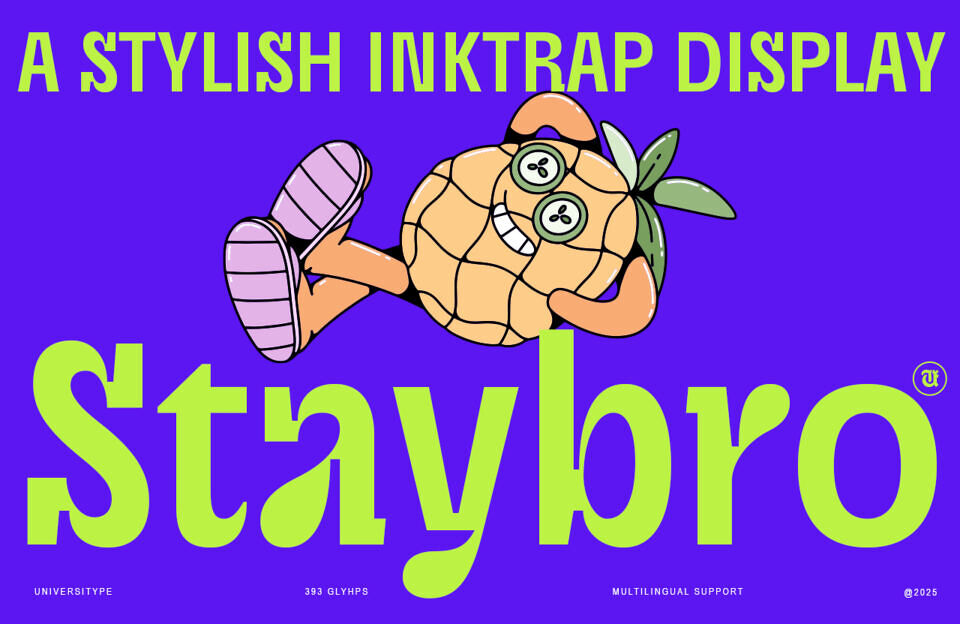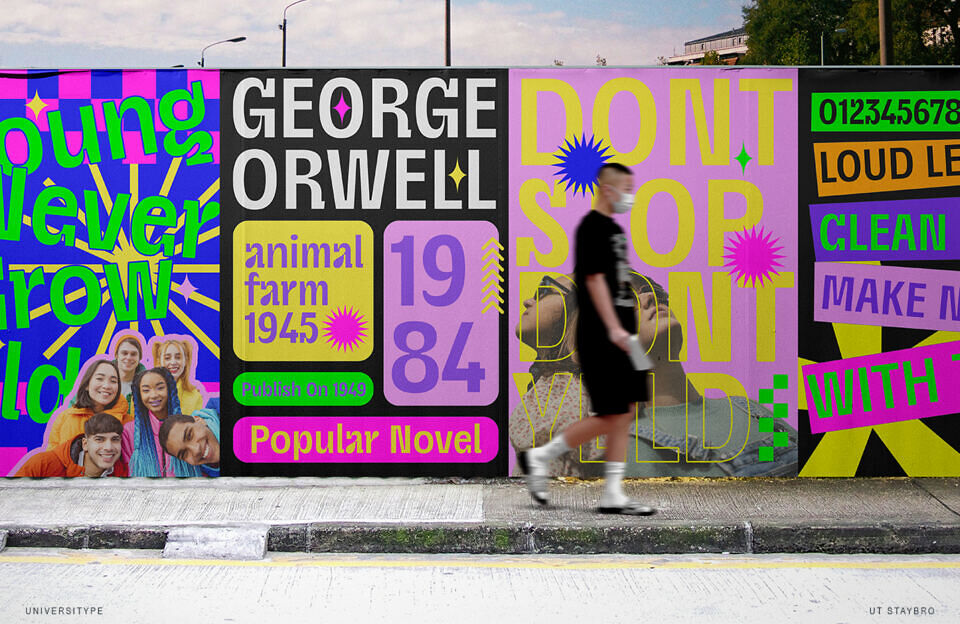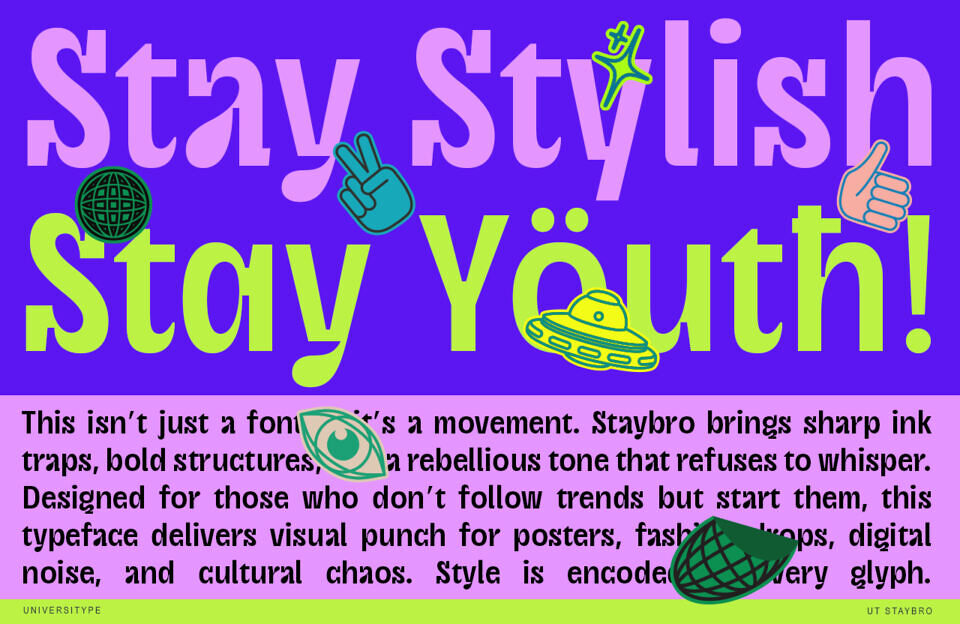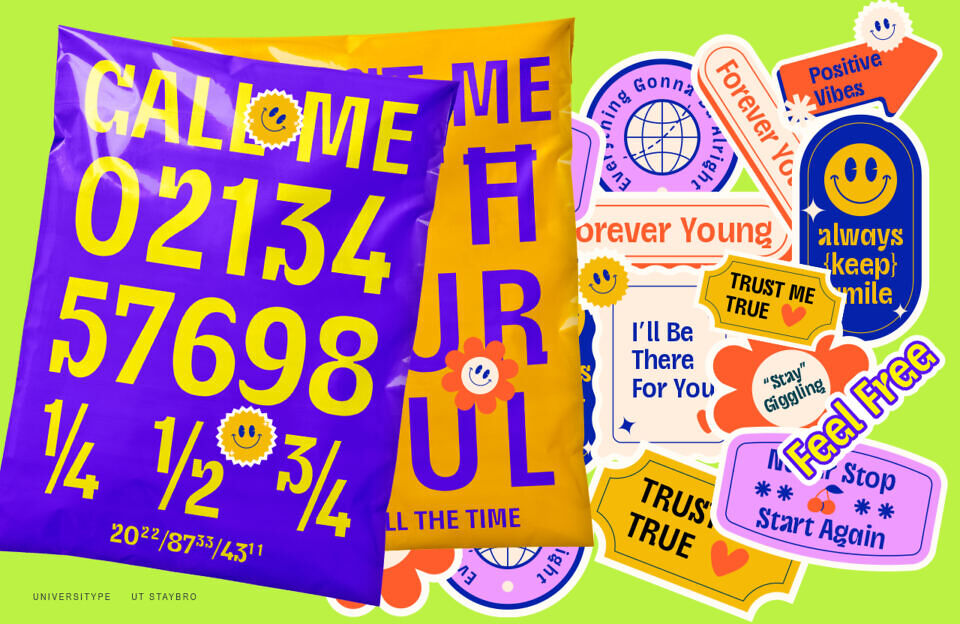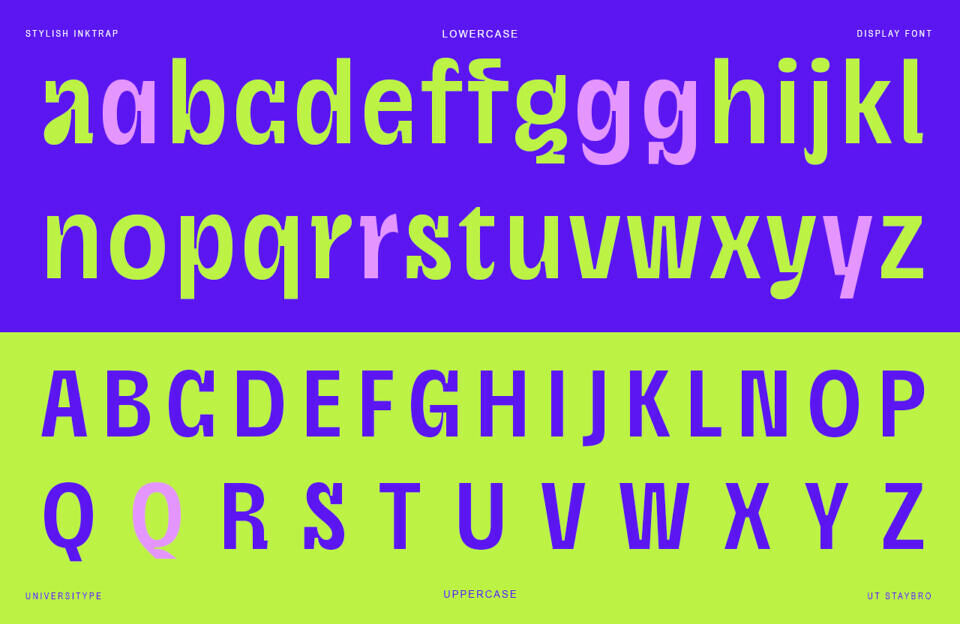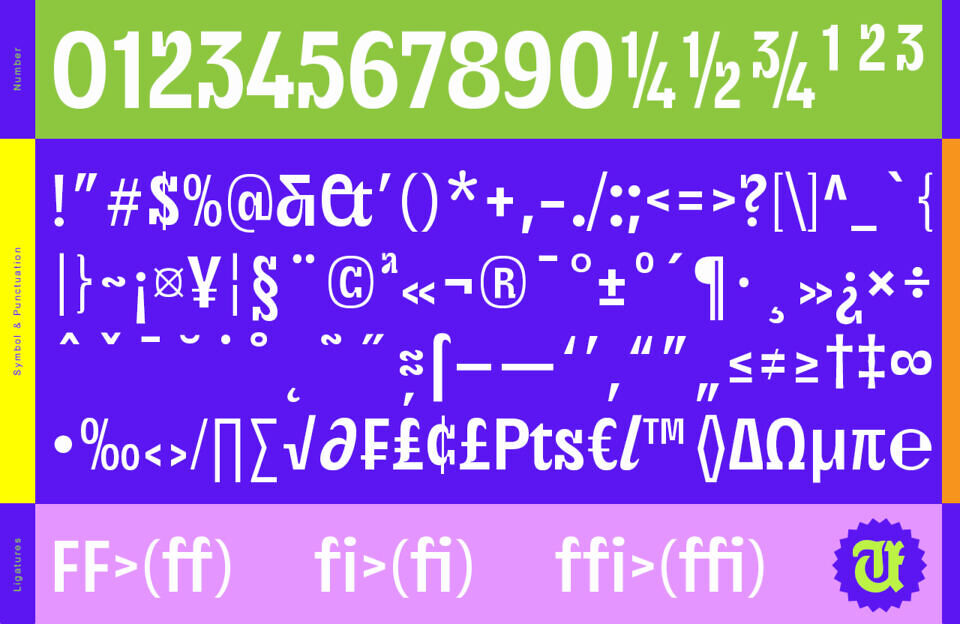
UT Staybro isn’t here to whisper. It’s the font that walks in with confidence, owns the room, and leaves people talking. Built for creators who don’t shy away from being noticed, this display typeface balances chunky, heavy strokes with geometric precision and smooth rounded details—a mix that radiates both strength and approachability.